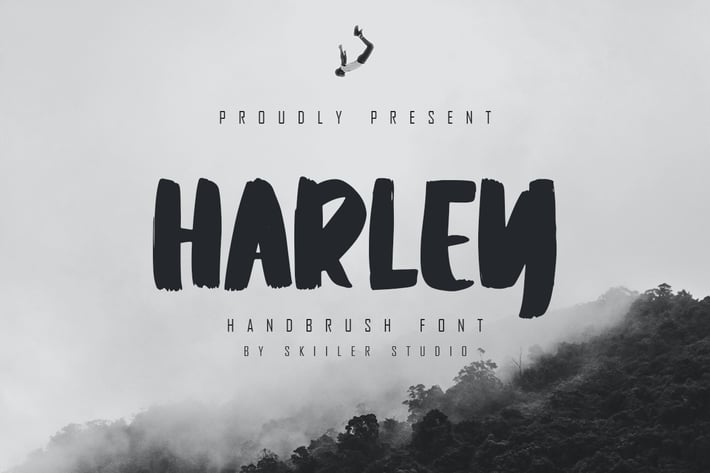
Harley - Handbrush Font
Harley Font is a modern and brushed display font, crafted to give your headlines and logotype projects a stylish touch. This font reads as strong, confident, and dynamic and can add tons of urban character to your designs.